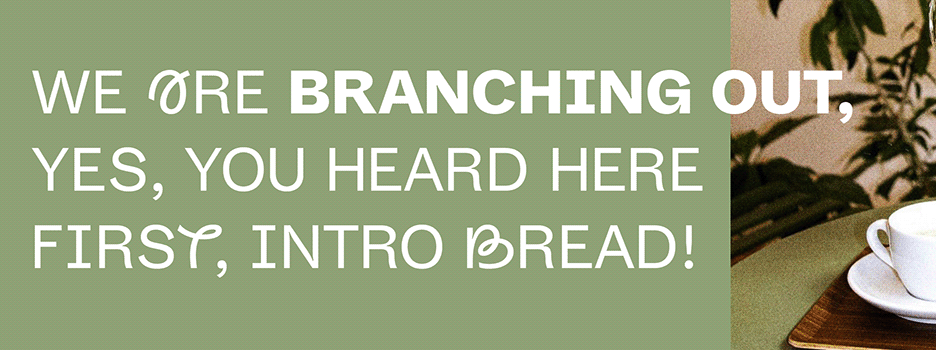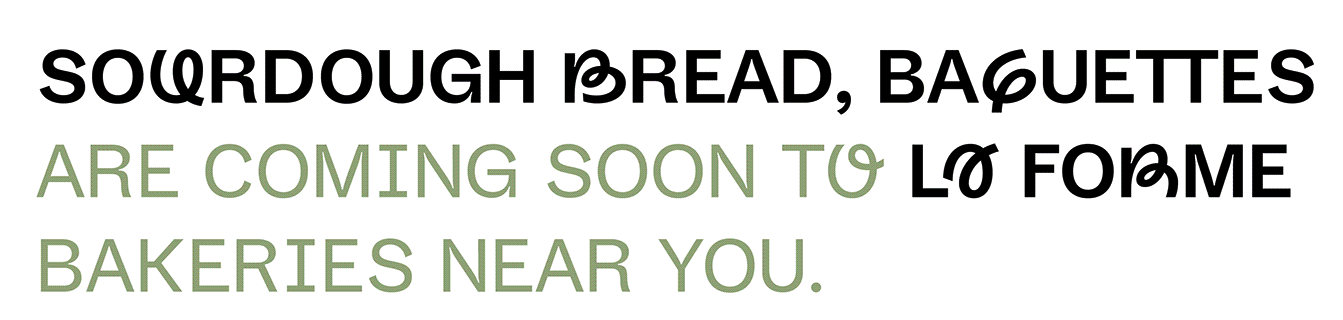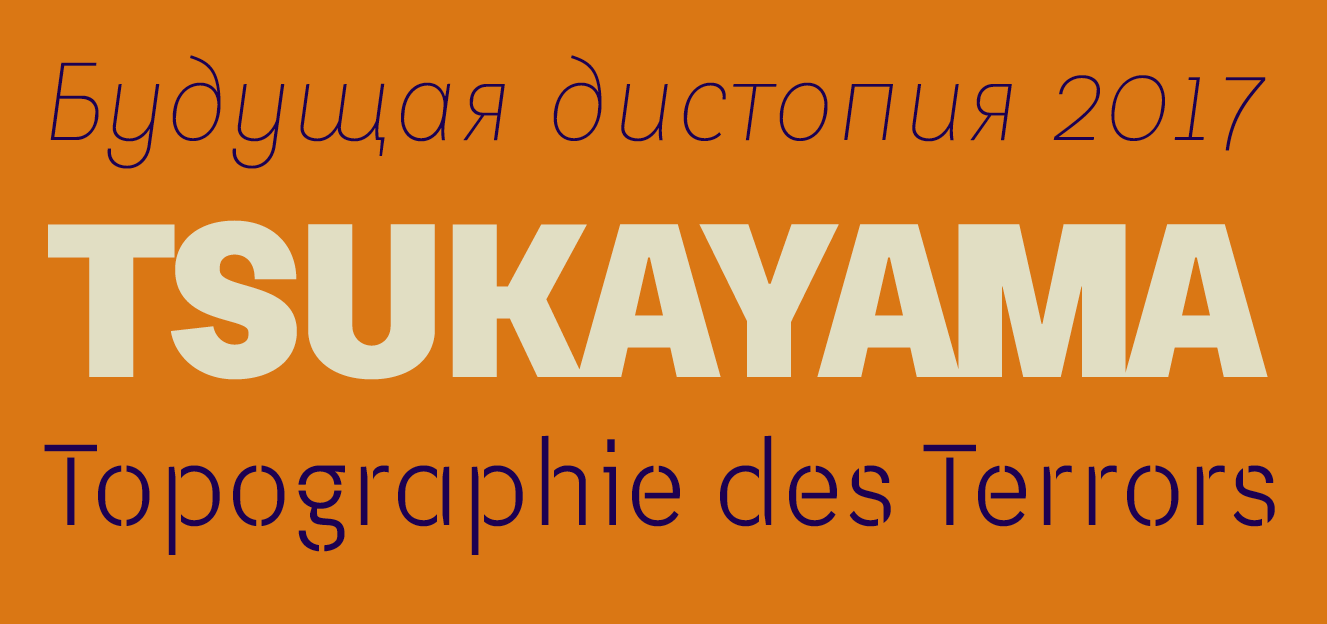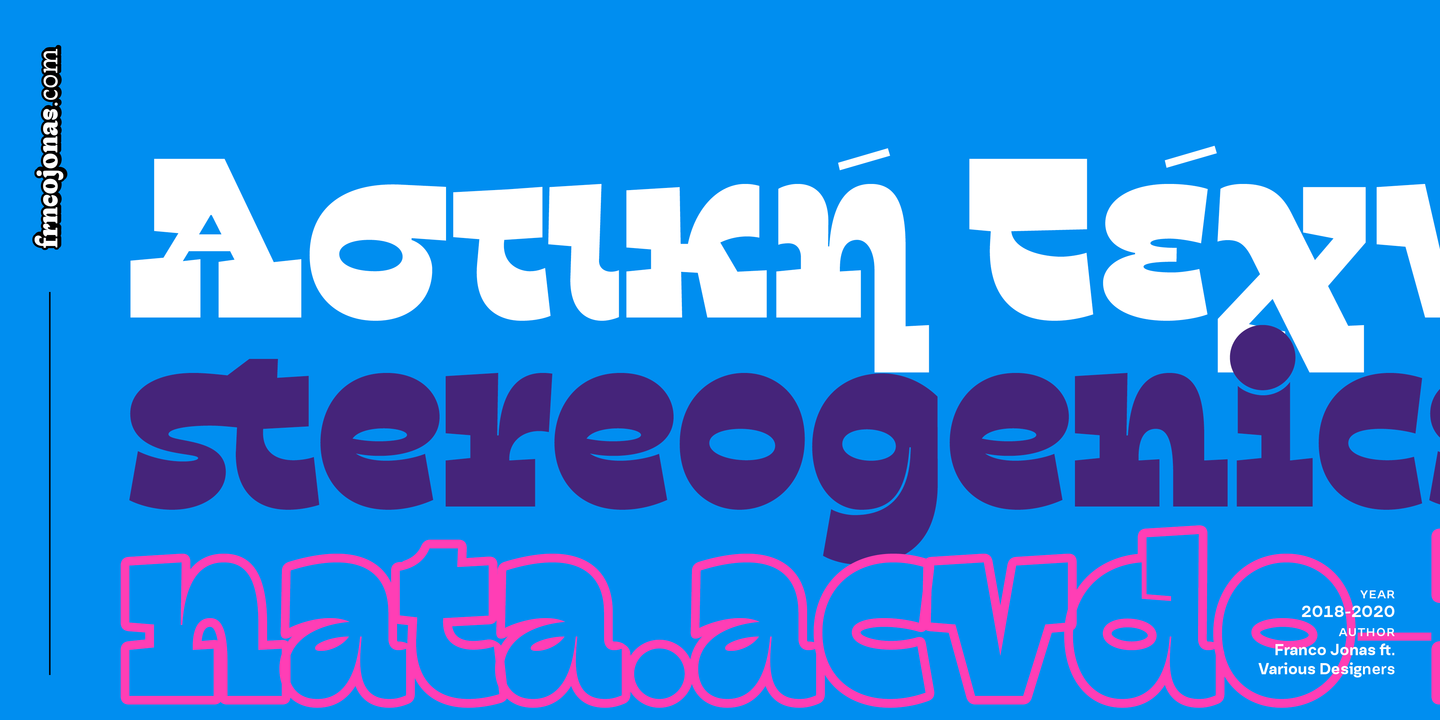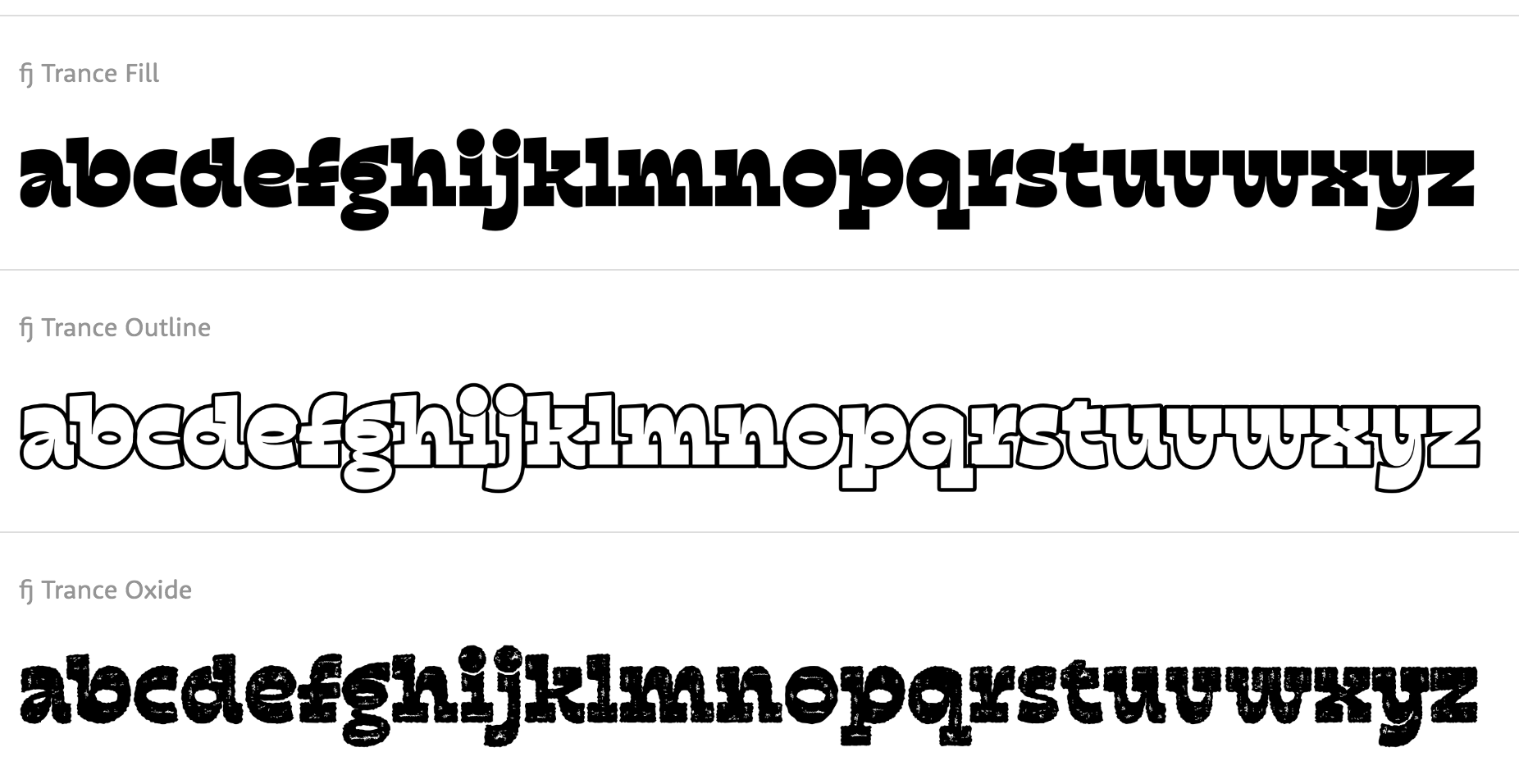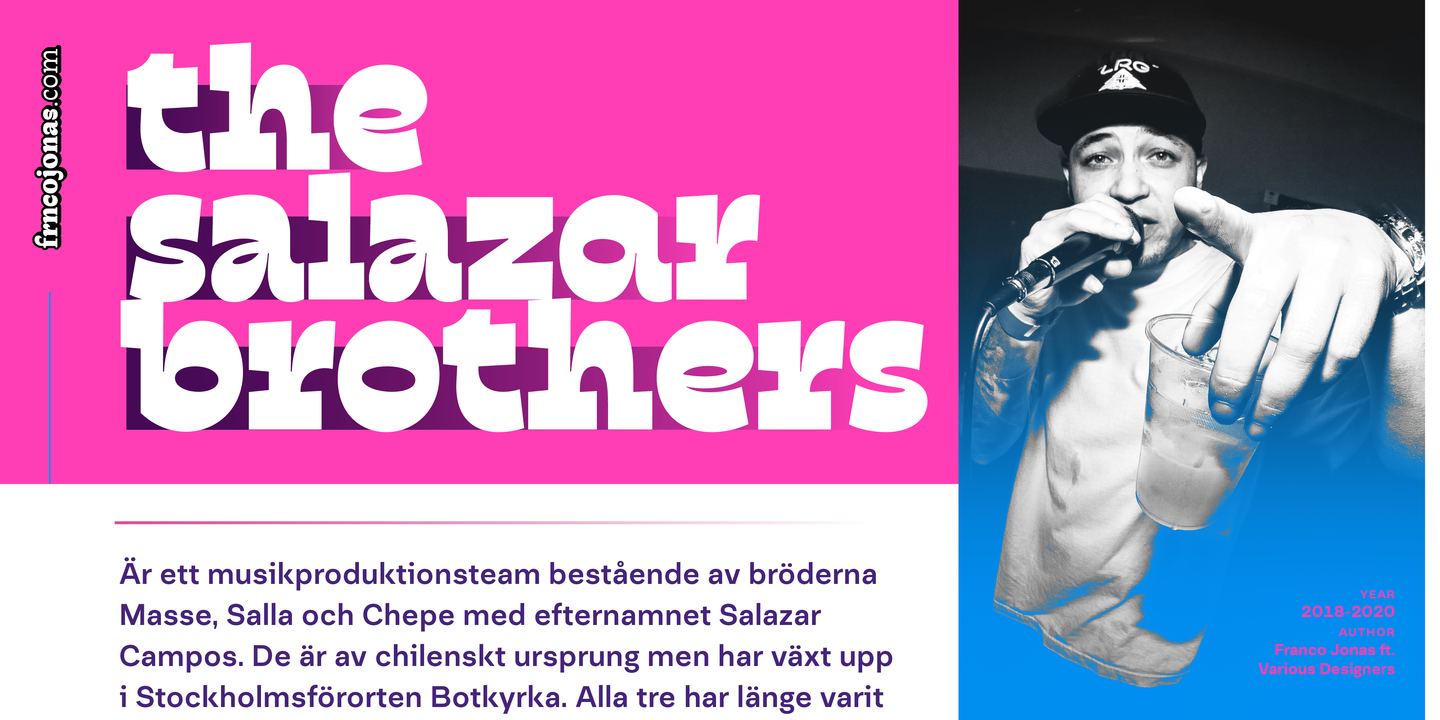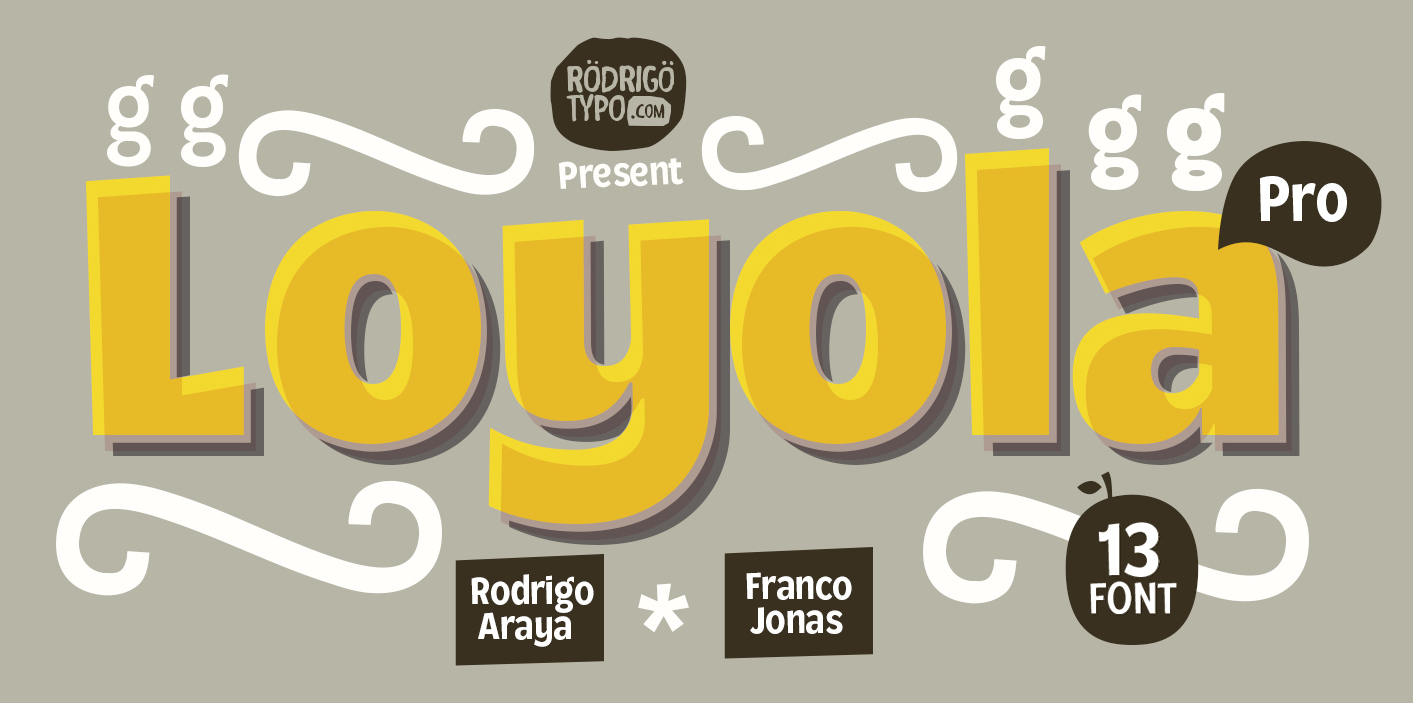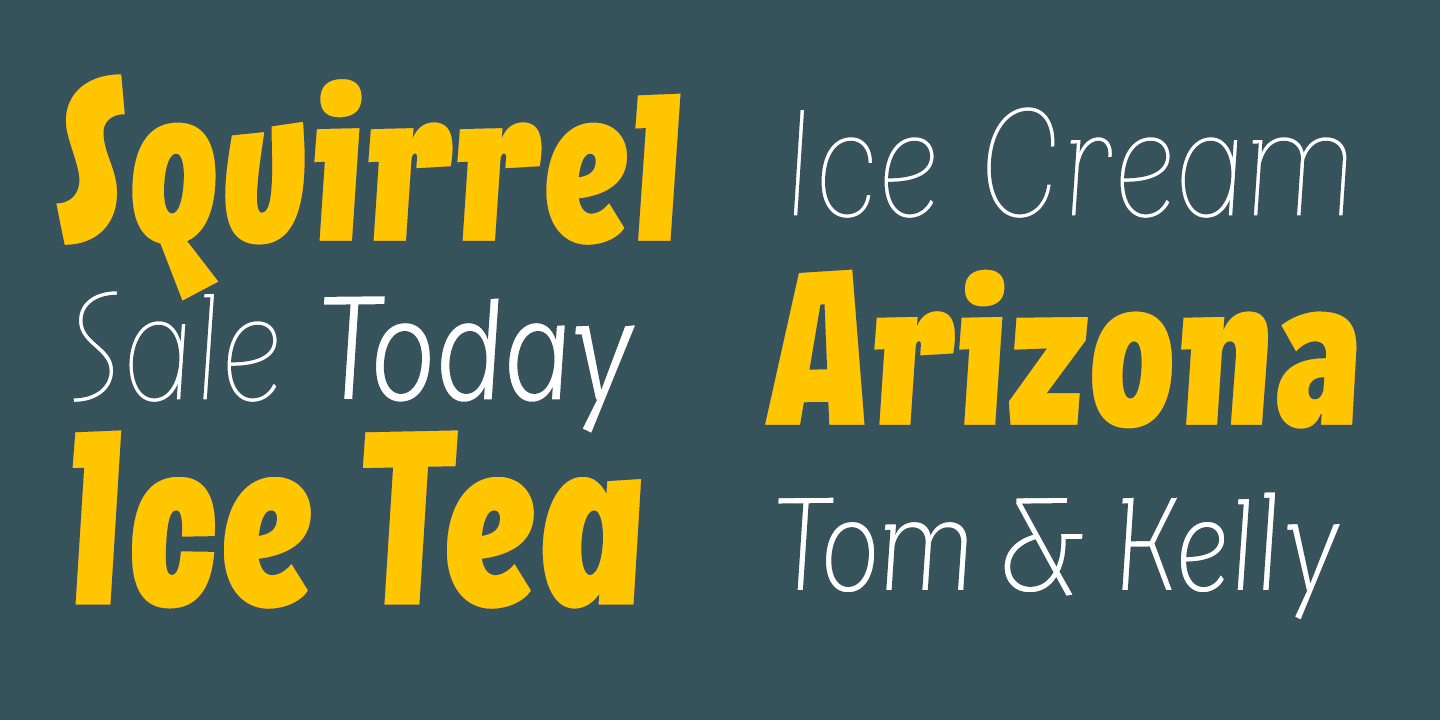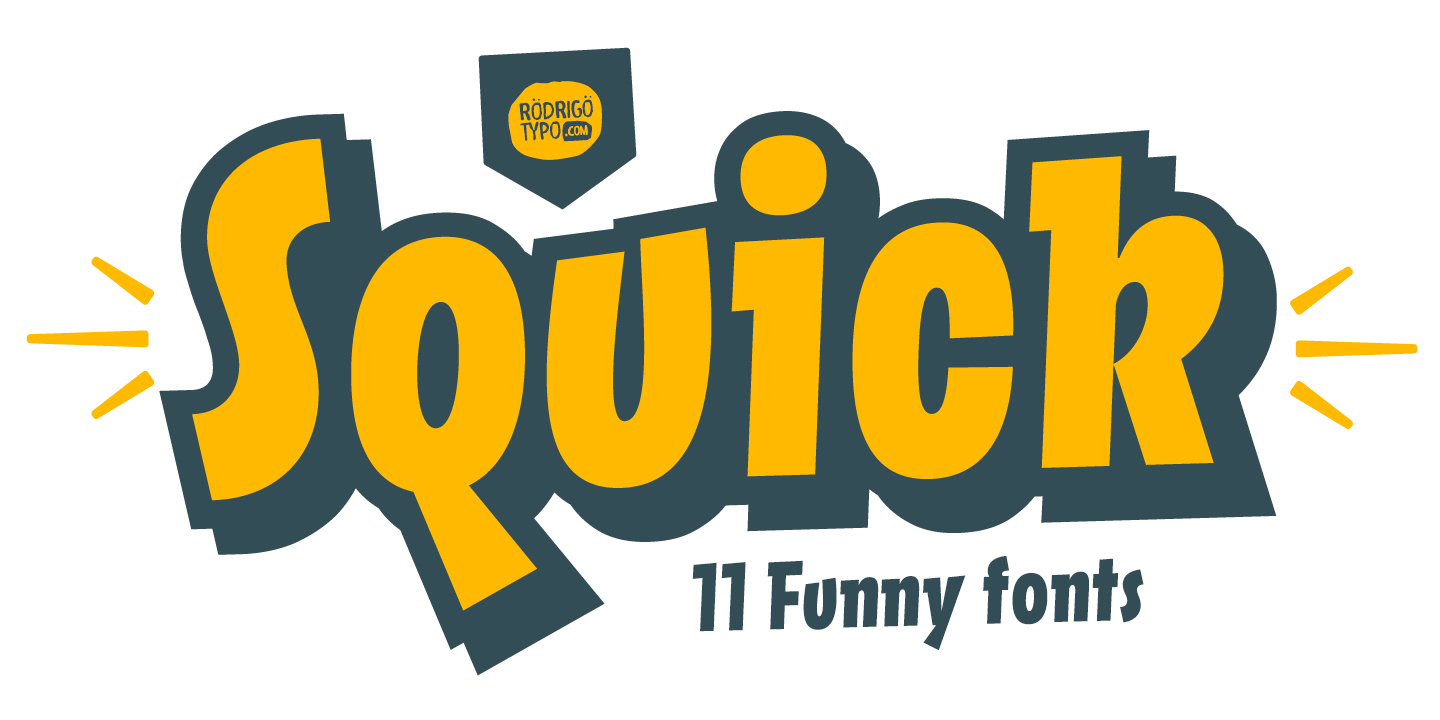
Frncojonastype [Franco Jonas]
During his studies at the Metropolitan Technological University of the State of Chile, Santiago (2013-2017), Chile-based Franco Jonas Hernandez created the lively text typeface Neftali Pro (2015, Tipotype). He also studied at Pontificia Universidad Catolica de Chile, class of 2015, and at UNAM in Mexico City, class of 2017. In 2020, he set up Frncojonastype.
In 2017, he and Rodrigo Araya Salas (Rodrigo Typo) co-designed the meaty sans display typeface Loyola Pro and the comic book typeface Pintanina. At W Foundry, he published Platz Grotesk (2017).
Typefaces from 2018: Squick (a comic book / children's font family by Franco Jonas, Andrey Kudryavtsev and Rodrigo Araya), Glatt, Tobi Pro (with Rodrigo Araya Salas and Andrey Kudryavtsev at Rodrigo Typo), Loyola Round Pro (by Rodrigo Araya Salas and Franco Jonas), Nuby (with Rodrigo Araya Salas and Andrey Kudryavtsev at Rodrigo Typo).
His text typeface Ticerz won an award at Tipos Latinos 2018.
In 2018, together with Ale Navaro and Raul Israel, he set up The Compania Tipografica de Chile, where he promptly published Passiflora (2018), a unicase rounded brush font inspired by facade inscriptions co-developed with Valentina Pino. Ding (2018) is a great fattish cartoon font that was co-designed by Rodrigo Araya Salas, Andrey Kudryavtsev and Franco Jonas. See also its extension, Ding Extra (2019).
Typefaces from 2019: Fonty (a creamy script), Clarence Alt (a an almost bubblegum children's book sans by Franco Jonas, Rodrigo Araya Salas and Andrey Kudryavtsev), Nacho (a Mexican party font by Rodrigo Araya and Franco Jonas), Ryman Gothic (2019, by Diego Aravena Silo and Franco Jonas at W Foundry: inspired by Edwin Allen's wood types and Morris Fuller Benton's gothics).
Typefaces from 2020: Clarence Inline (a plump informal typeface family by Rodrigo Araya Salas and Franco Jonas Hernandez), Ancoa Slanted (an angular display family in 15 styles; by Andrey Kudryavtsev, Rodrigo Araya Salas and Franco Jonas Hernandez), Skippie (a comic book family by Andrey Kudryavtsev, Rodrigo Araya Salas, Bruno Jara Ahumada and Franco Jonas, and four sets of dingbats including Skippie Monster Lucha Libre and Skippie Monster Halloween), Ancoa (an angular 19-style layerable typeface by Andrey Kudryavtsev, Rodrigo Araya Salas and Franco Jonas Hernandez).
Typefaces published at Frncojonastype:
• fj Trance (2020). A reverse contrast Egyptian by Rodrigo Araya Salas, Franco Jonas, Valentina Faundes and Jorge Morales Salas.
• fj Meduza (2020). A 26-style decorative didone-based typeface family.
• fj Platz Groteske (2020). A large neo-grotesk family with wide spacing.
• Willner (2021). A 5-style display sans by Rodrigo Araya and Franco Jonas.
• Clarence Pro (2021). A vernacular supermarket font by Rodrigo Araya Salas and Franco Jonas Hernandez.
• Alabaster Antique FJ (2021). A paella of styles mixed together in a smorgasbord of rijsttafels.
• Proud Grotesk (2020). A custom typeface for a new brand for Pivovar Proud Brewery in Plzen, Czechia.
• Rinno (2021). A rounded geometric display family by Rodrigo Araya Salas and Franco Jonas Hernandez.
• Baked FJ (2021). A custom typeface for the Laforme Bakery&Café in Prague, Czech Republic.